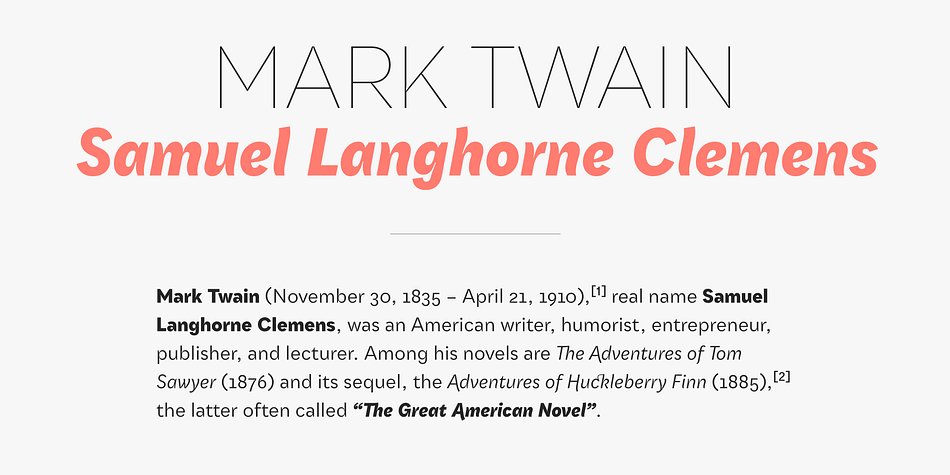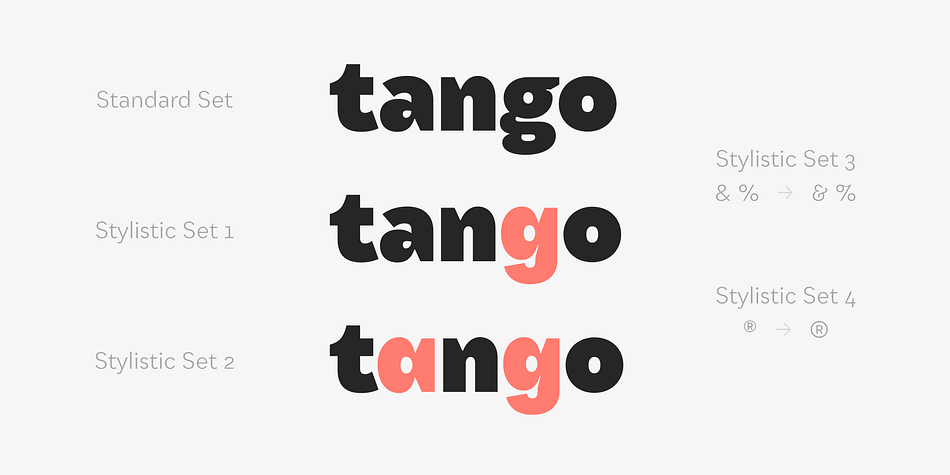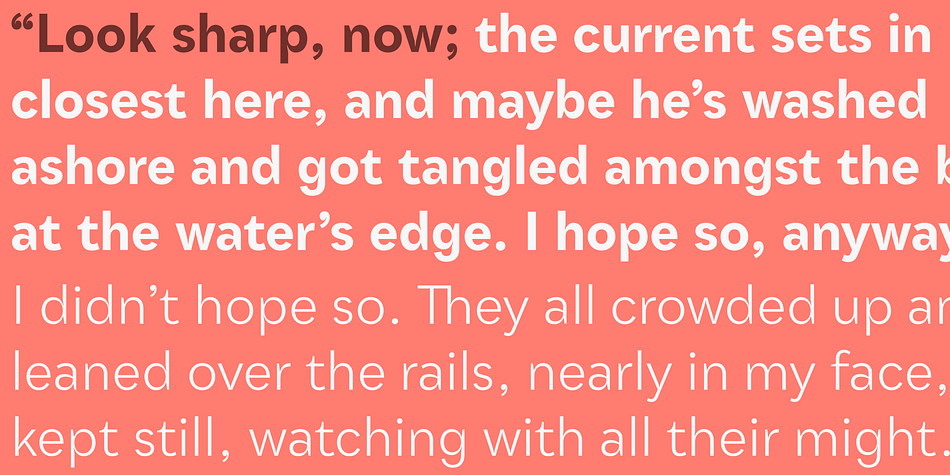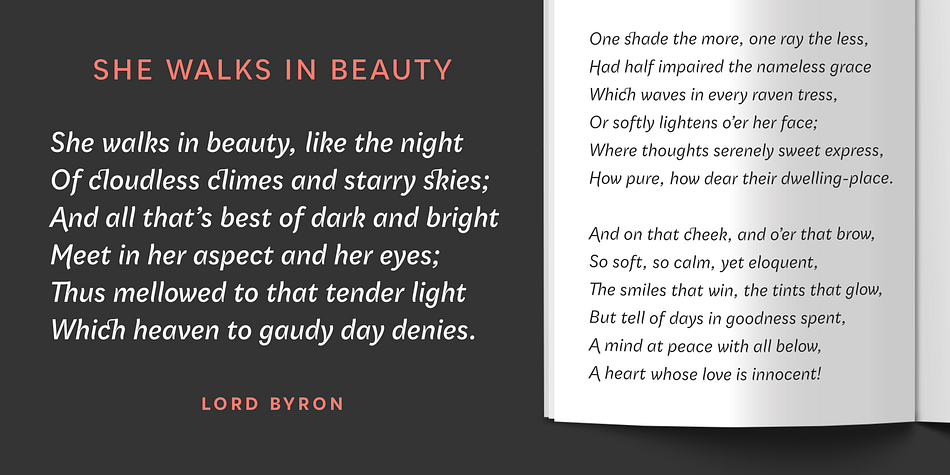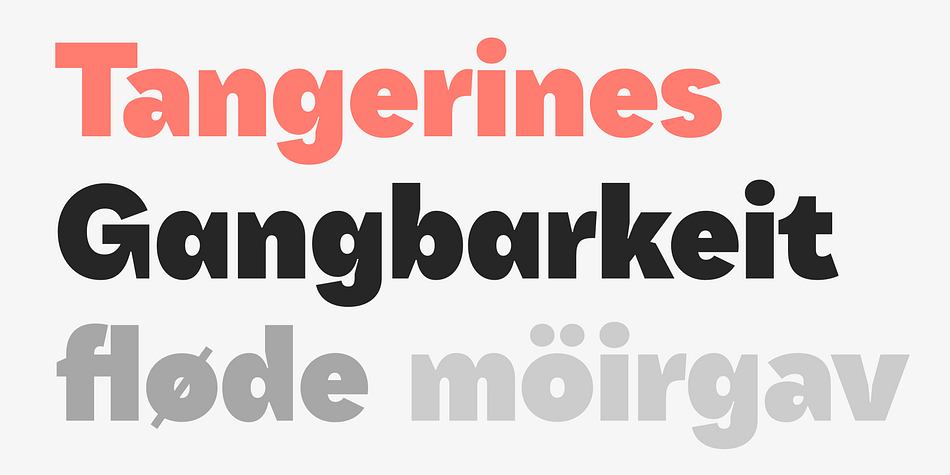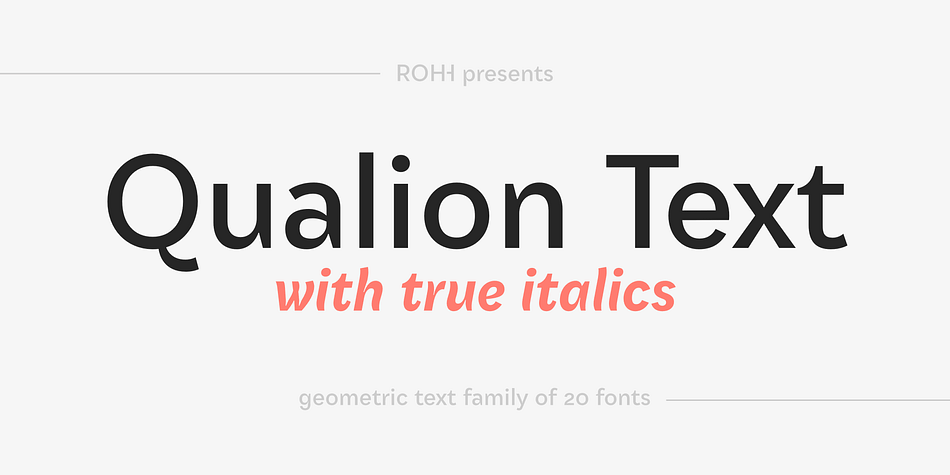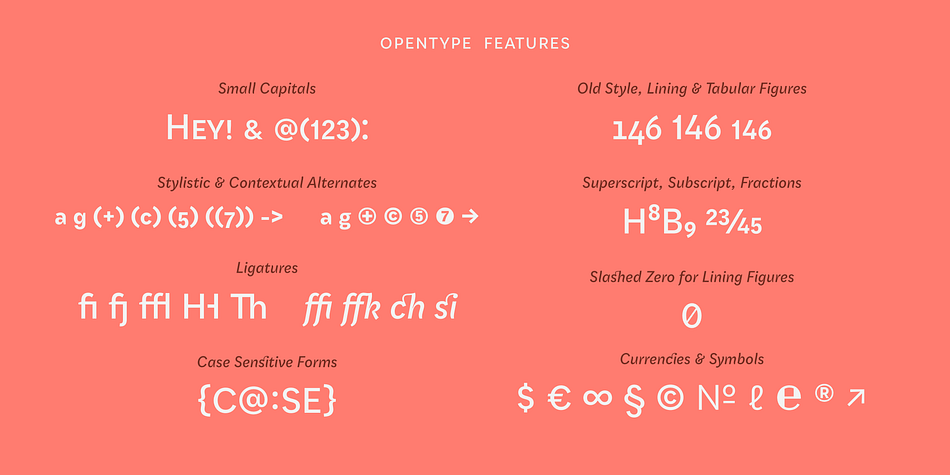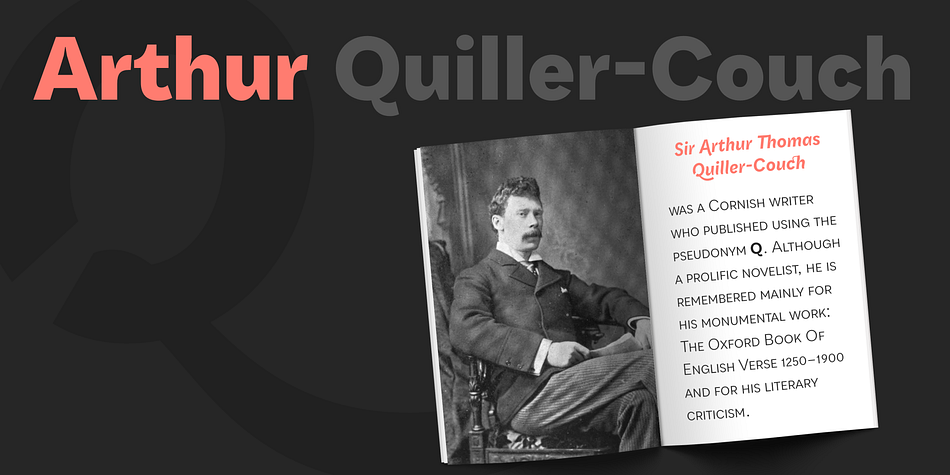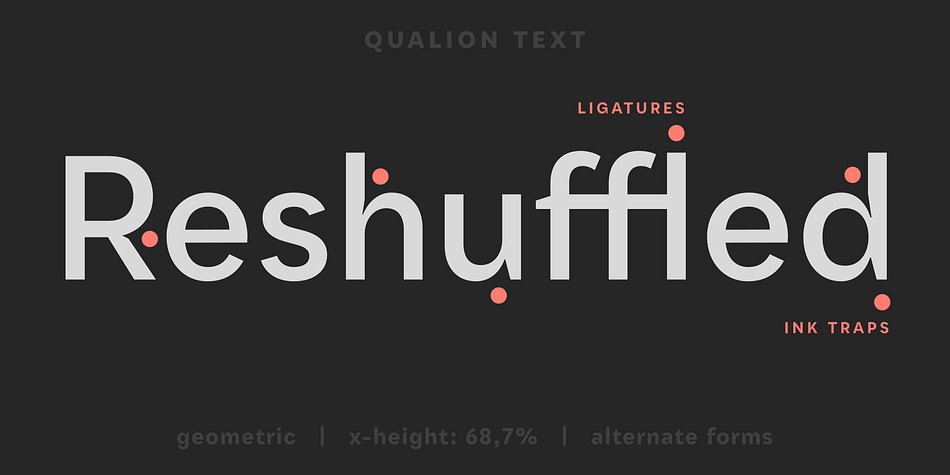
Designed by Roch Modrzejewski, Qualion Text is a sans serif font family. This typeface has twenty styles and was published by ROHH.
Qualion Text™ is a modern geometric sans serif typeface with humanist and calligraphic inspirations. It is a text family designed for excellent legibility.
The main purpose of the family is clean and legible paragraph text, however it is very attractive choice for branding, headlines and display use, too. The italic styles as well as thin, bold and black upright styles have very strong character and look great in display sizes. Italics are very fluent, calligraphic, subtle and elegant, from the other side bold and black uprigths are very modern, powerful and unique thanks to the pronounced ink traps.
Qualion Text™ is a sibling of Qualion™, geometric family with lots of swashes and ornaments. Letter shapes and proportions has been adjusted to fit paragraph text and small sizes:
- typeface is narrower now in order to fit more text in the design space
- larger stroke contrast
- pronounced ink traps and tapering
- elegant true italics made even more calligraphic
- adjusted spacing and kerning
- adjusted font weights
Qualion Text™ family consists of 20 styles - 10 weights with corresponding true italics. Both have extended language support, as well as broad number of OpenType features, such as small caps, case sensitive forms, standard and discretionary ligatures, swashes, stylistic sets, contextual alternates, lining, oldstyle, tabular and small cap figures, slashed zero, fractions, superscript and subscript, ordinals, currencies and symbols.